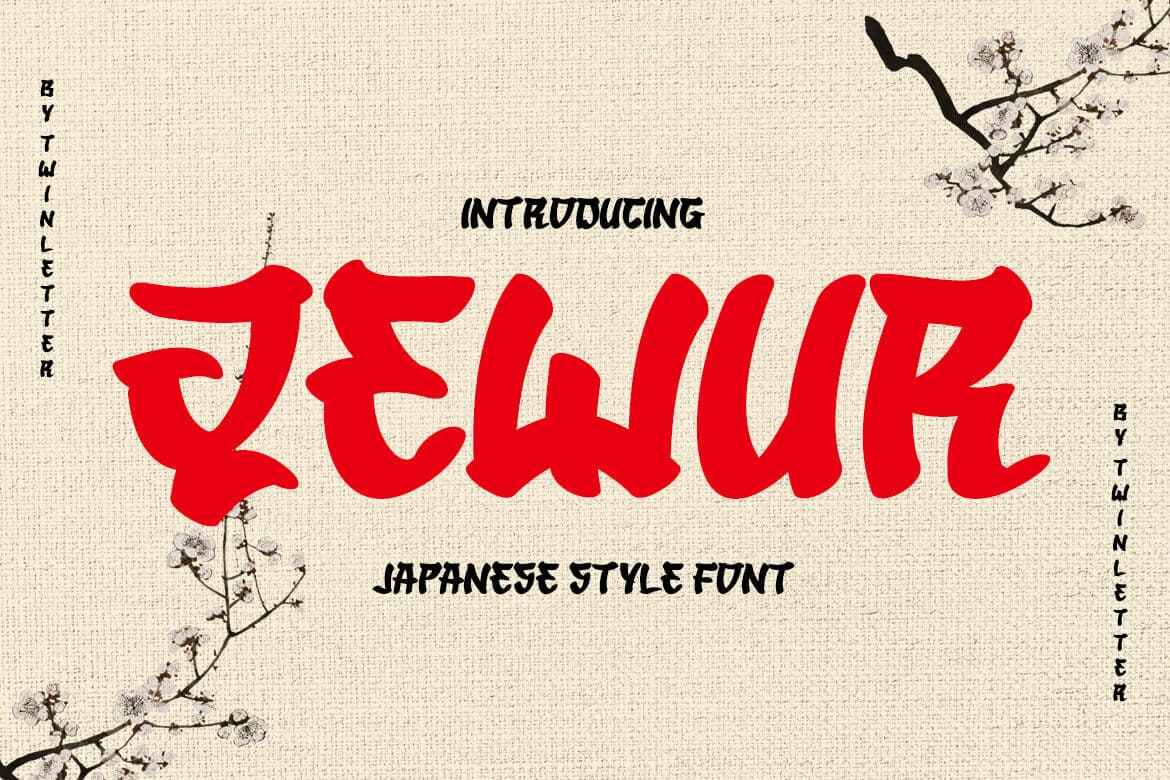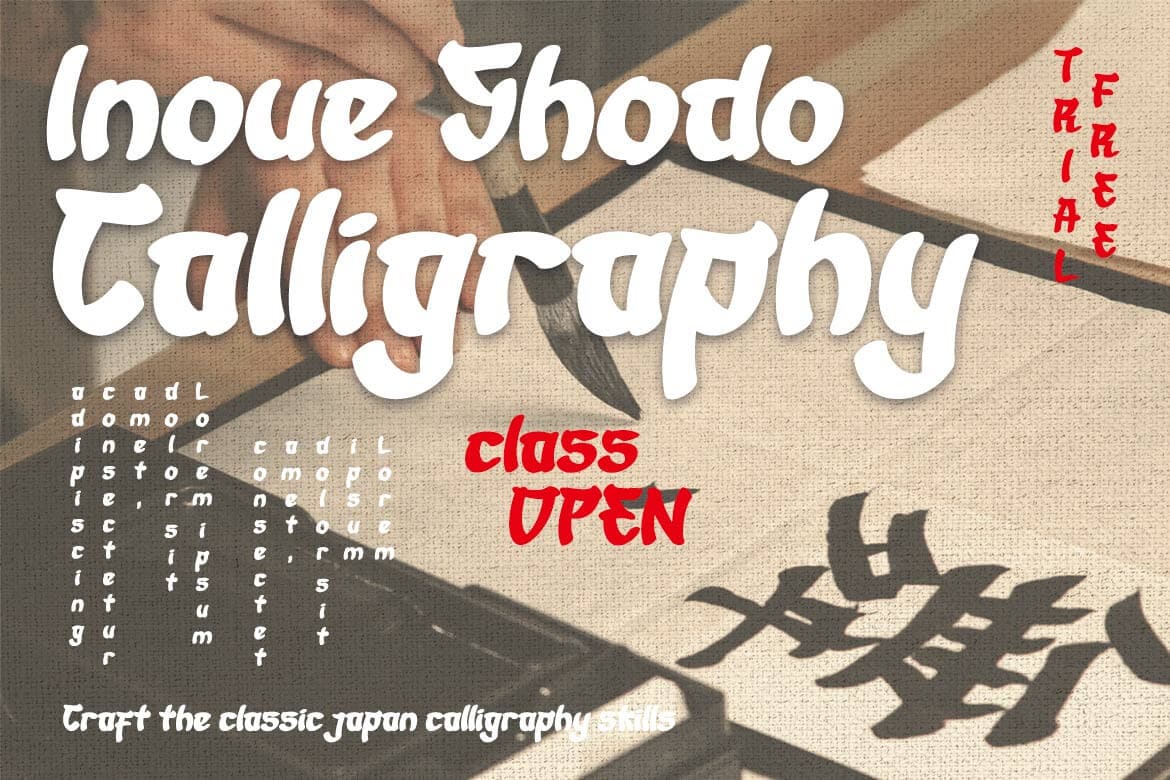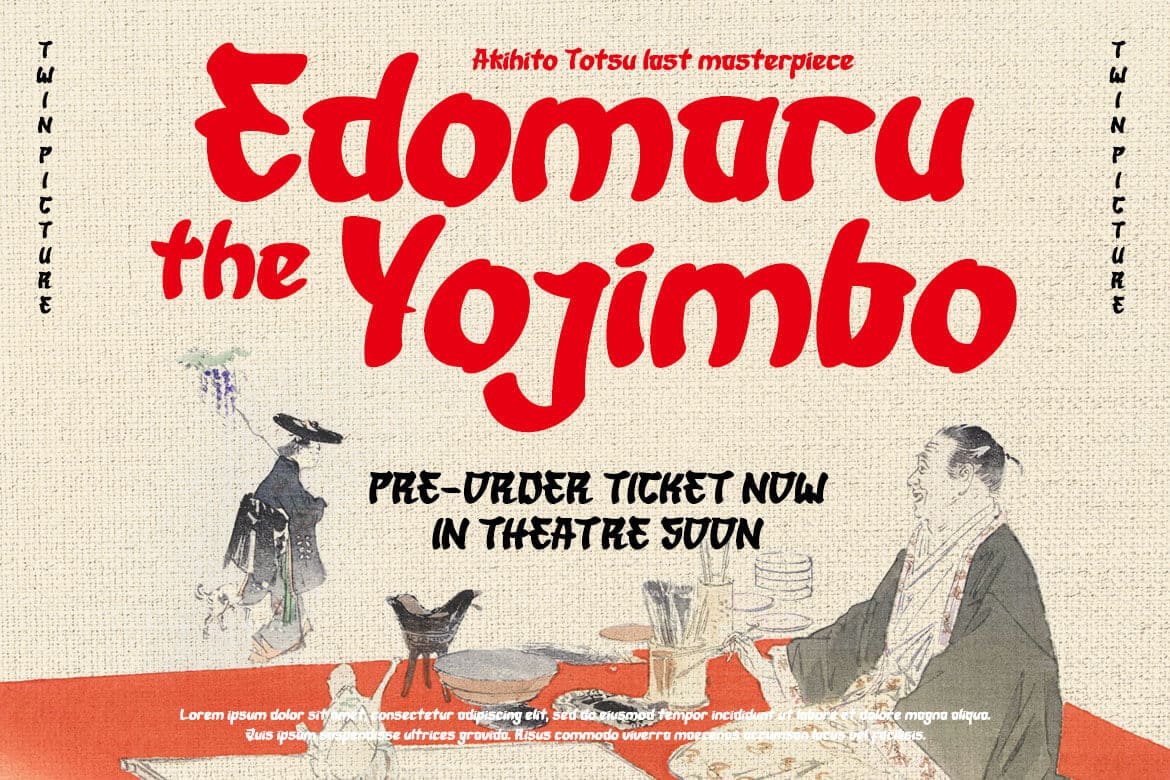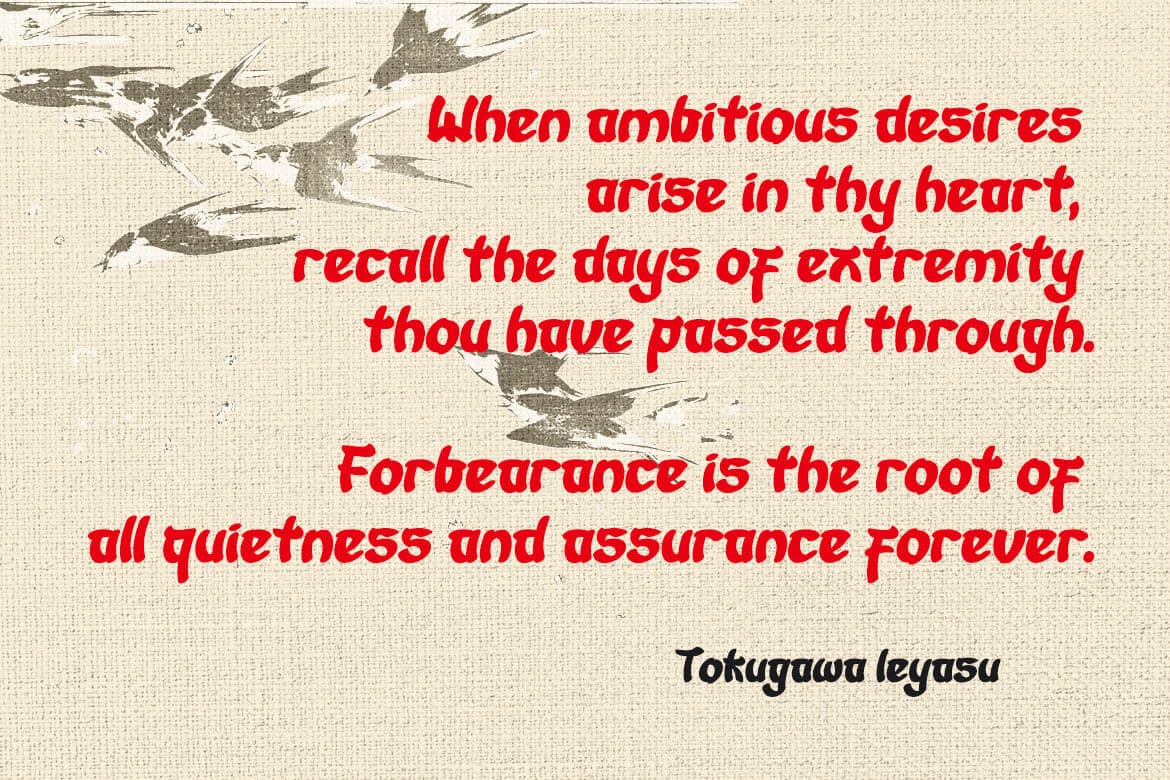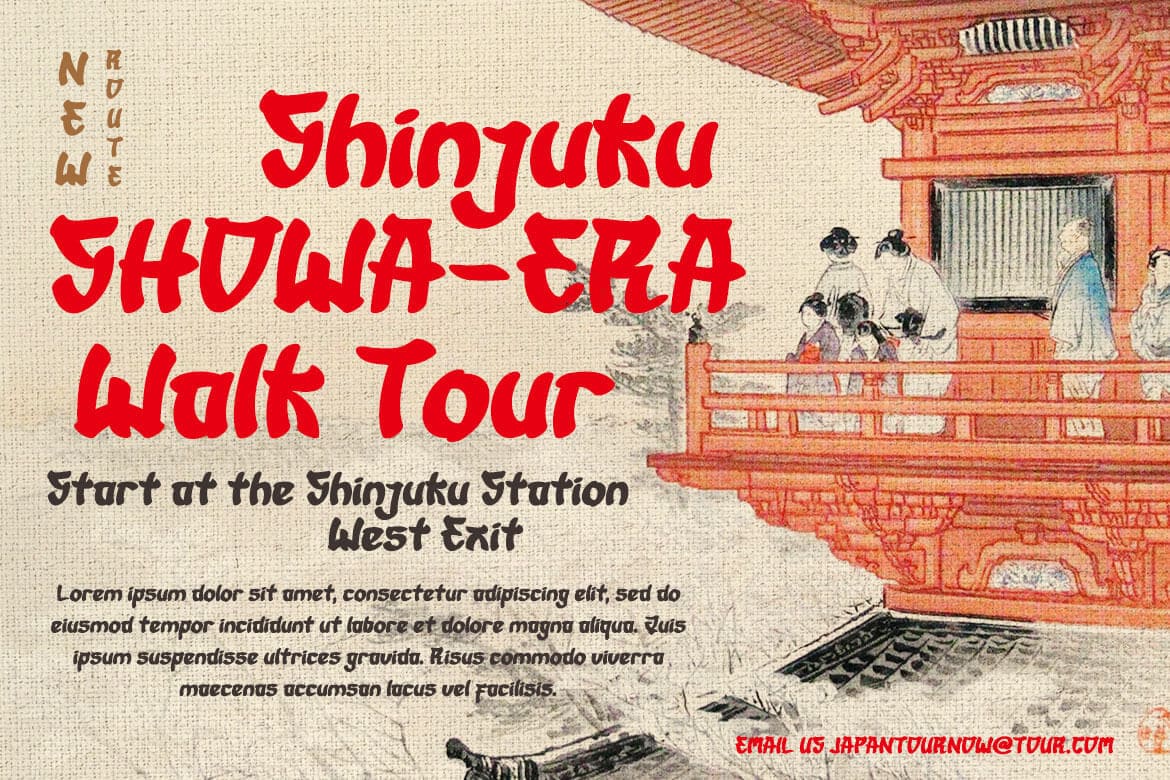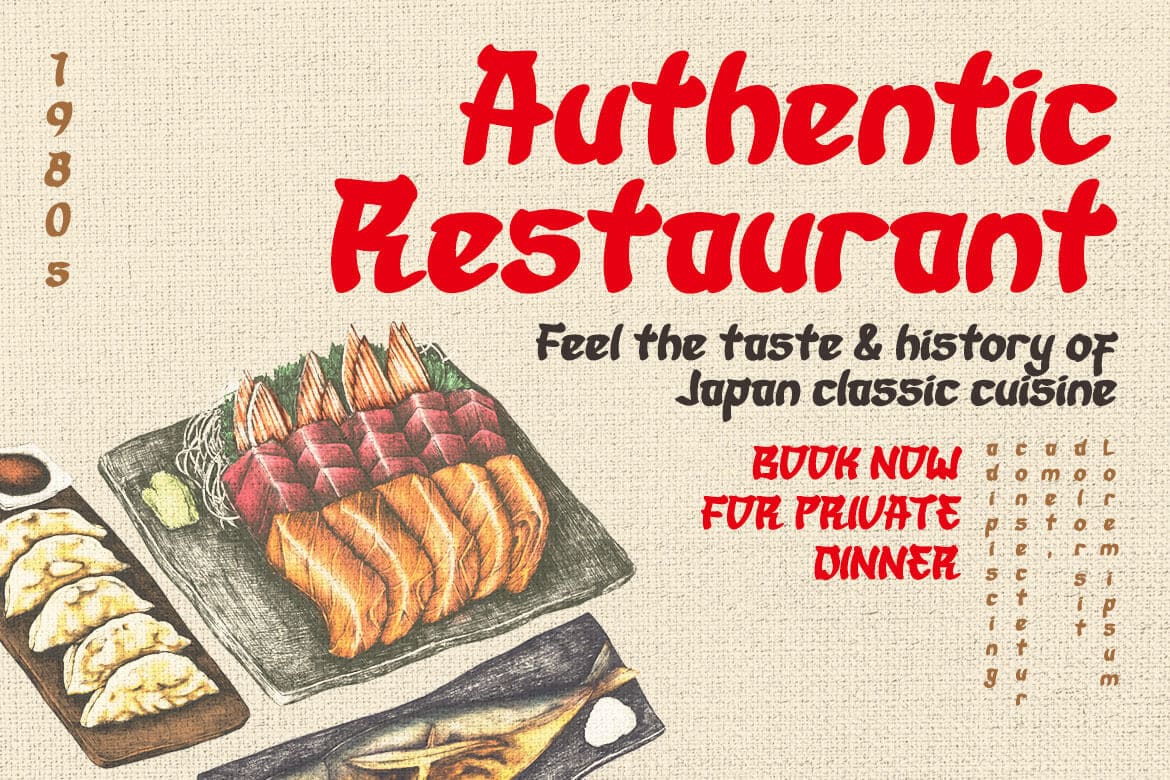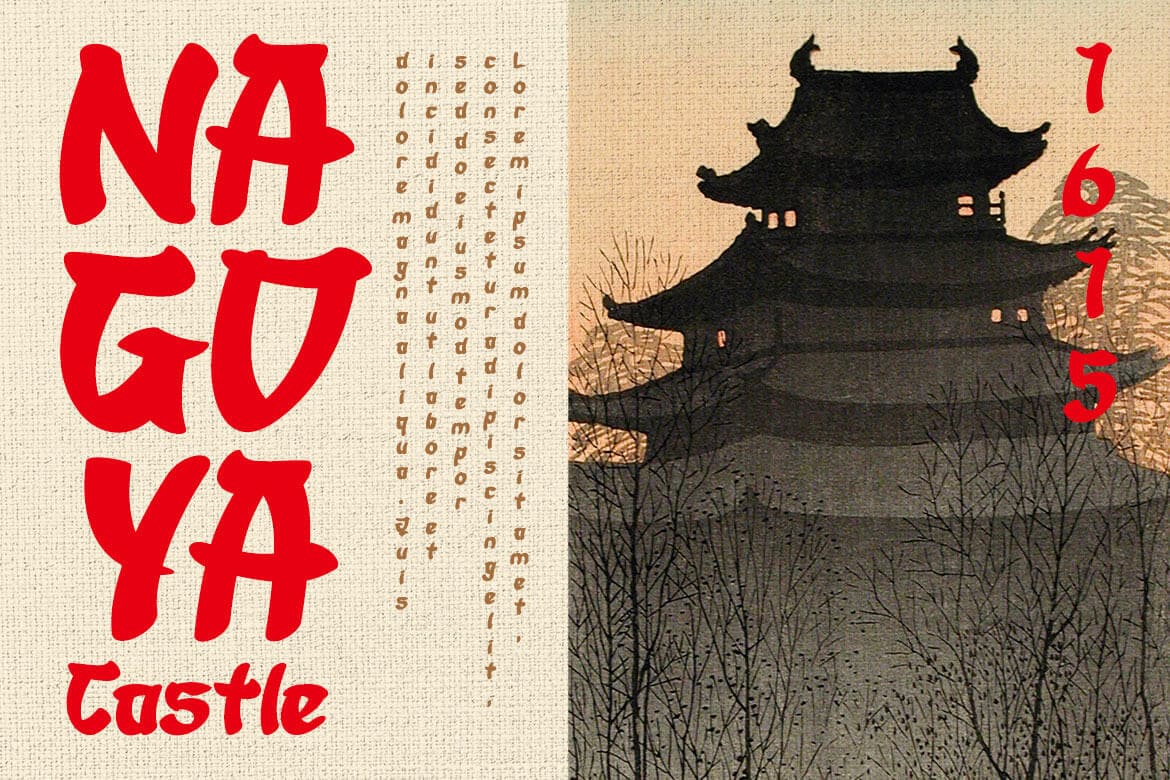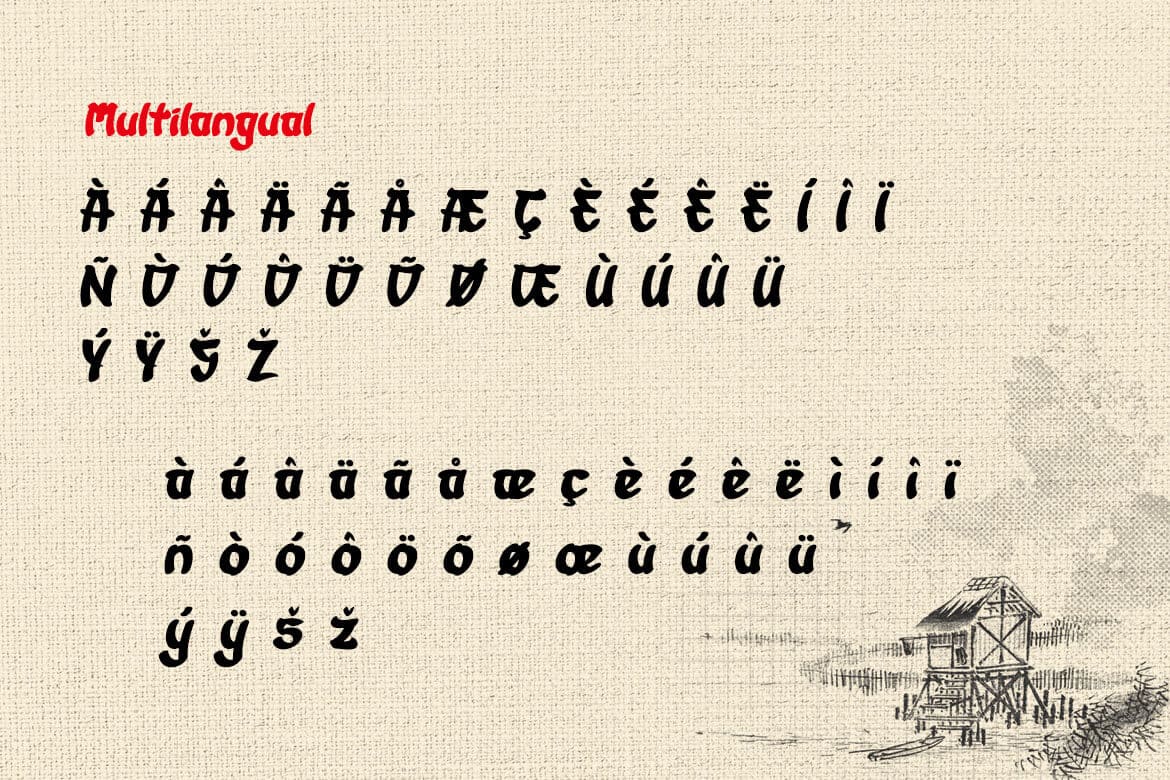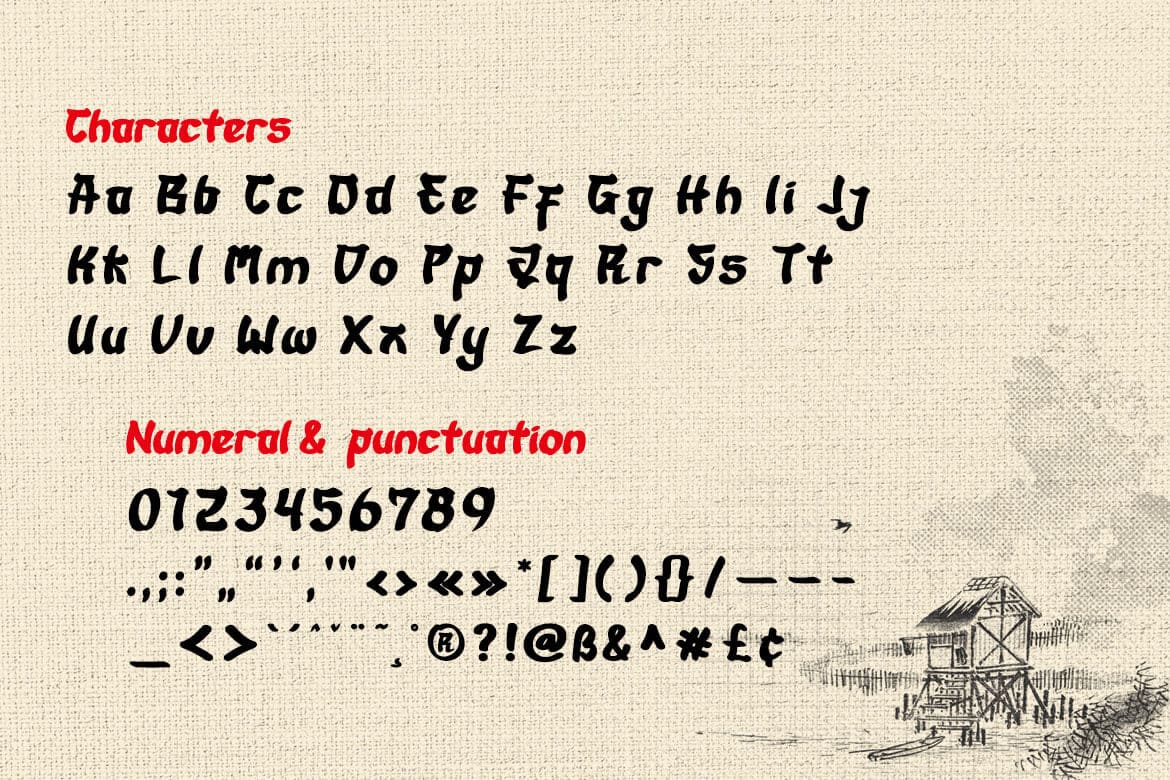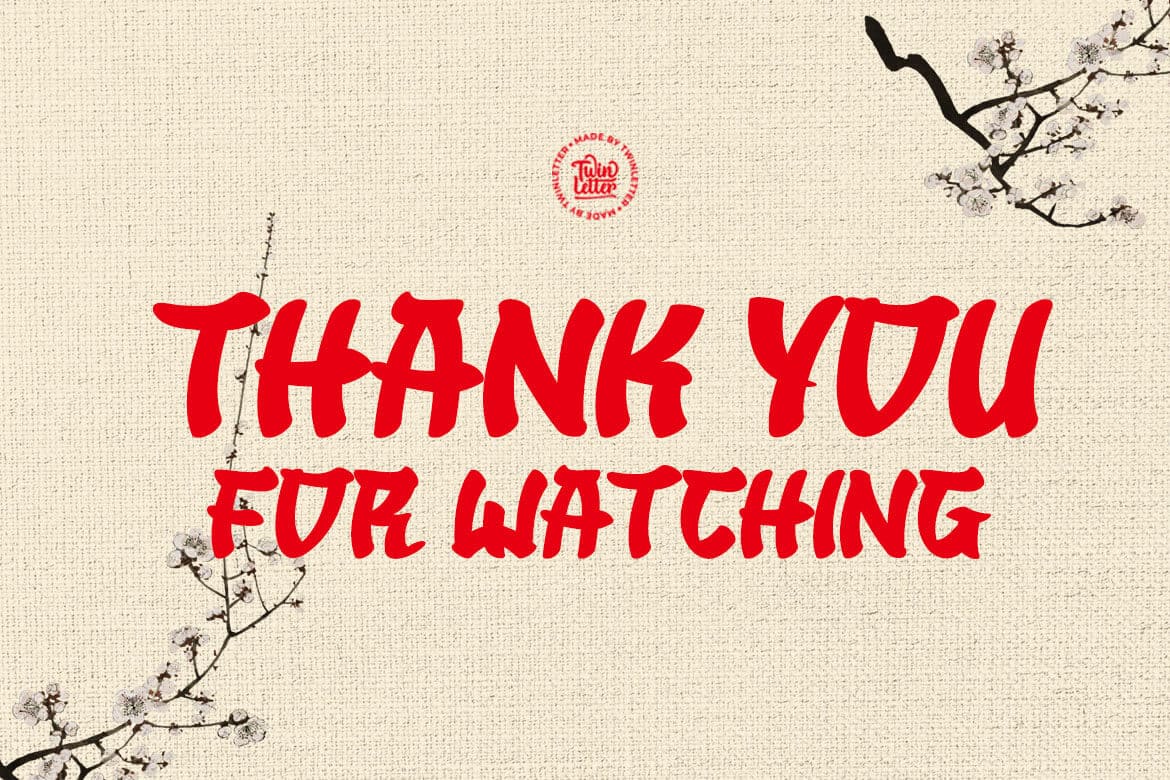
QEWUR Faux Japanese Font
Introducing QEWUR, our newest font, an authentic font with a Japanese style theme, with an attractive and decent font shape to make your project elegant, special, gorgeous, and charming, and easy to remember for the audience.
Logotypes, food banners, branding, brochure, posters, movie titles, book titles, quotes, and more may all benefit from this font.
Of course, using this font in your various design projects will make them excellent and outstanding; many viewers are drawn to the striking and unusual graphic display.
Start utilizing this typeface in your projects to make them stand out.
Introducing QEWUR, our newest font, an authentic font with a Japanese style theme, with an attractive and decent font shape to make your project elegant, special, gorgeous, and charming, and easy to remember for the audience.
Logotypes, food banners, branding, brochure, posters, movie titles, book titles, quotes, and more may all benefit from this font.
Of course, using this font in your various design projects will make them excellent and outstanding; many viewers are drawn to the striking and unusual graphic display.
Start utilizing this typeface in your projects to make them stand out.